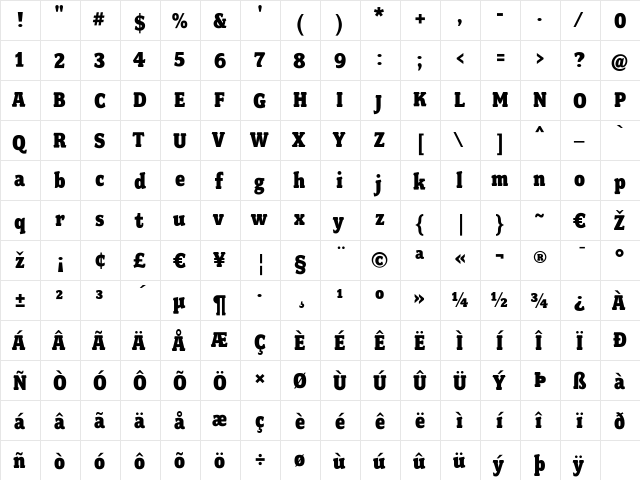
FairplexNarrow Regular
Design Context for FairplexNarrow Typeface
FairplexNarrow takes a measured approach to typography — its balanced proportions and neutral character make it a reliable workhorse for both digital and print work. The condensed width makes it efficient for tight spaces without sacrificing legibility.